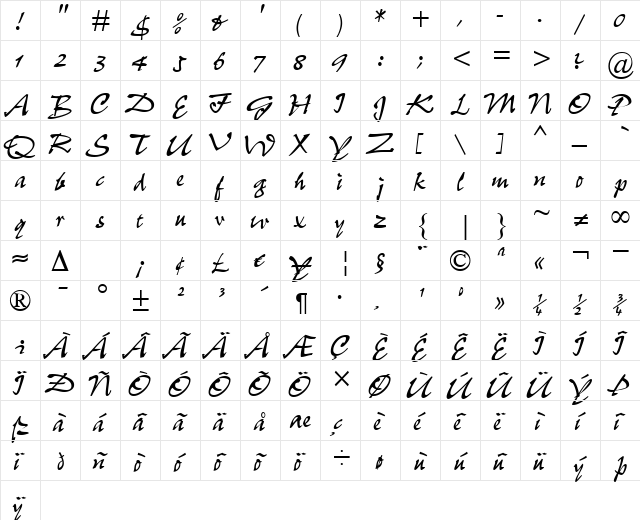
Script-P700 Regular
Design Context for Script-P700 Typeface
Script-P700 flows with the natural rhythm of handwritten lettering, making it ideal for designs that call for warmth and personal expression.
Font Pairing: Combine Script-P700 with a simple geometric sans for maximum contrast — the tension between flowing curves and clean structure is a classic typographic pairing.
Pro Tip: Use Script-P700 for short runs of text — names, titles, or taglines. Extended body copy in script faces tires the eye quickly.